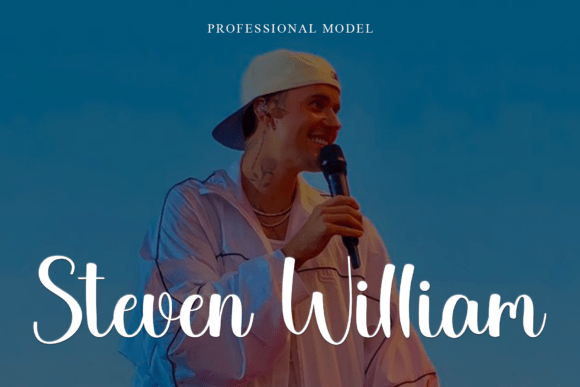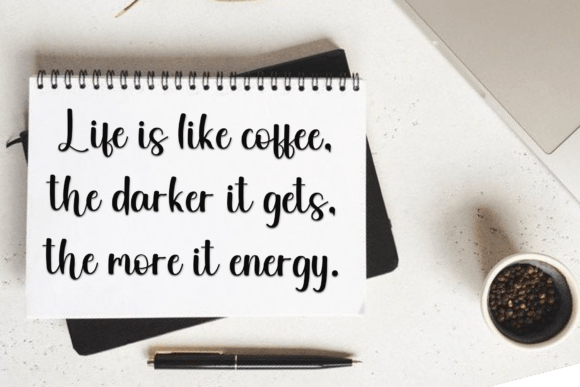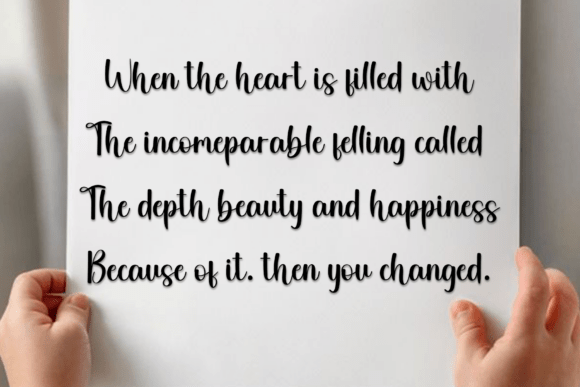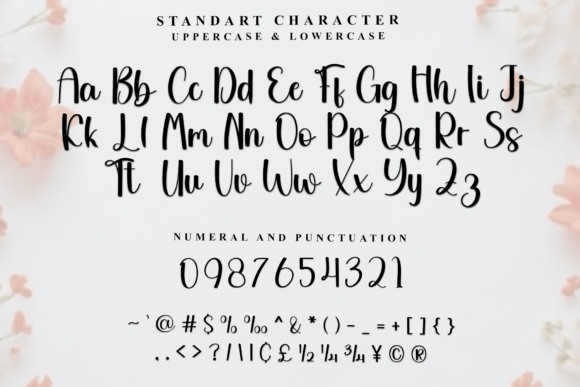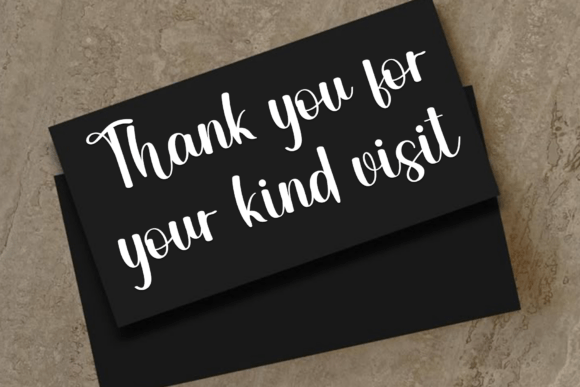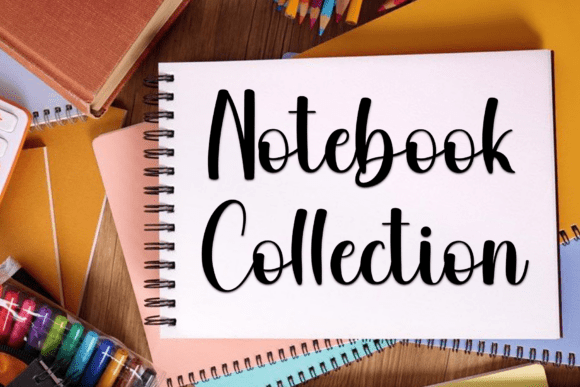
Introducing Bookmark Font: The Festive and Merry Typeface for Holiday Designs
Are you looking for a font that captures the essence of the holiday season? Do you want to add a touch of magic to your designs, greeting cards, and gift tags? Look no further than Bookmark Font, a decorative and whimsical typeface that’s perfect for holiday-themed projects. In this article, we’ll explore the features and benefits of Bookmark Font, and how it can elevate your typography to new heights.
Bookmark Font is a carefully crafted typeface that embodies the spirit of the holiday season. Its decorative elements and whimsical flair make it an ideal choice for designers and crafters who want to add a touch of enchantment to their work. Whether you’re creating greeting cards, gift tags, or holiday-themed projects, Bookmark Font is the perfect choice to bring a cheerful and nostalgic ambiance to your words.
Perfect for Holiday Designs
Bookmark Font is specifically designed for holiday designs, making it a versatile and valuable addition to your font collection. Its festive and merry vibe is perfect for:
- Greeting cards: Create beautiful and unique holiday greeting cards that will stand out from the crowd.
- Gift tags: Add a personal touch to your gifts with custom gift tags that feature the whimsical charm of Bookmark Font.
- Holiday-themed projects: Use Bookmark Font to create festive and engaging projects, such as holiday posters, flyers, and social media graphics.
Bookmark Font offers a range of features and benefits that make it an ideal choice for designers and crafters. Some of the key features include:
- Decorative elements: Add a touch of magic to your designs with the font’s decorative elements, such as swashes and flourishes.
- Whimsical flair: Give your designs a playful and whimsical touch with the font’s unique and quirky style.
- Festive and merry vibe: Perfect for holiday designs, the font captures the essence of the holiday season.